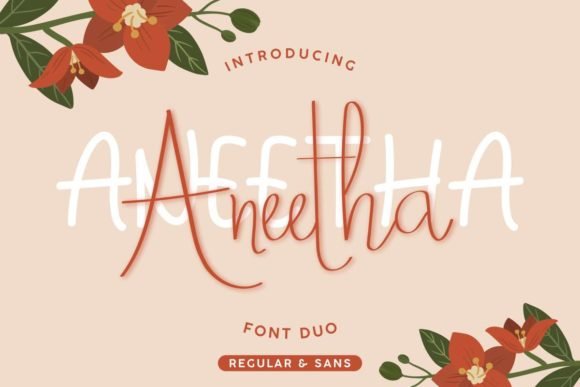
The Perfect Pair: Unleashing the Beauty of Aneetha Font
Have you ever found yourself stuck in a design rut, searching for the perfect combination of fonts to elevate your project? I know I have. One moment, I was browsing through font libraries, and suddenly, I stumbled upon a stunning sans and script font duo that changed everything. The Aneetha Font duo caught my eye, and I knew I had to explore it further.
Aneetha Font is a beautifully crafted combination of a sans and script font, designed to work harmoniously together to create stunning results. Whether you’re a seasoned designer or just starting out, this font duo offers endless possibilities for creative expression. With Aneetha Font, you can add a touch of elegance and sophistication to your designs, making it a valuable addition to any designer’s toolkit.
Aneetha Font Key Features
- Unique Characteristics: Aneetha Font features a unique blend of modern and traditional elements, with subtle nuances in letterform design that add depth and visual interest.
- Font Style: Aneetha Font is a sans-serif font with a clean, minimalist aesthetic, making it well-suited for modern design applications, including digital interfaces, publications, and branding materials.
A Designer’s Review of Aneetha Font
I’ve had the chance to work with Aneetha Font, and here’s my honest take on it.
Aneetha Font is a beautiful, elegant script font that’s perfect for creative projects, such as invitations, wedding stationery, or luxury branding.
It features a range of weights and styles, from light to bold, allowing for flexibility in design applications.
- Beautiful, flowing script letters
- Range of weights and styles for flexibility
- Perfect for creative, luxury, or elegant branding
While Aneetha Font is a lovely script font, it does have some limitations.
It’s not ideal for body text or large blocks of text, as the script style can become overwhelming and difficult to read.
- Not suitable for body text or large blocks of text
- May require additional formatting to maintain readability
Aneetha Font is a stunning script font that’s perfect for creative, luxury, or elegant branding. While it may not be suitable for all design applications, it’s a great choice for those who want to add a touch of sophistication and elegance to their designs.
Getting the Most Out of Aneetha Font
To get the most out of Aneetha Font, try the following:
- Pair Aneetha Font with other fonts to create a unique design.
- Use Aneetha Font to create a cohesive brand identity.
Aneetha Font is ideal for:
- Brand logos and identities.
- Website and app design.
- Marketing materials and social media graphics.